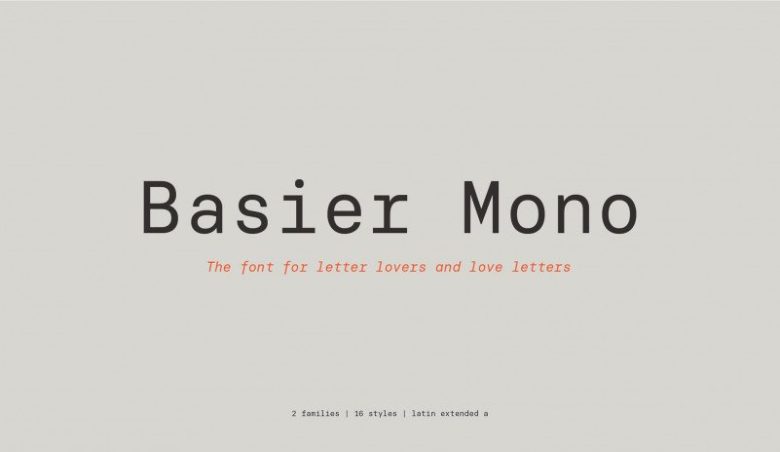
Basier Mono Font Family
Basier Mono is based on the successful Basier font family. Inspired by the International Style, is a neo-grotesque sans serif typeface available in two variants, Circle & Square.
The result is a modern and neutral font family that is ideally suited for logotypes, branding, editorial design as well as web and screen design.